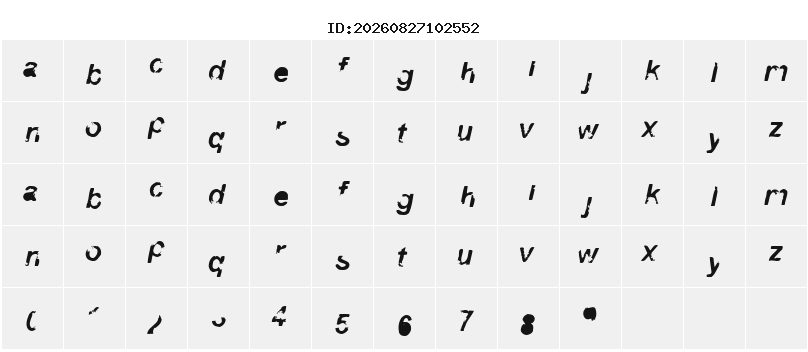
3 Preview
About 3.ttf
3.ttf is a modern, elegant sans-serif font designed for ultimate readability and visual harmony. Perfect for branding, headlines, web design, and print materials.